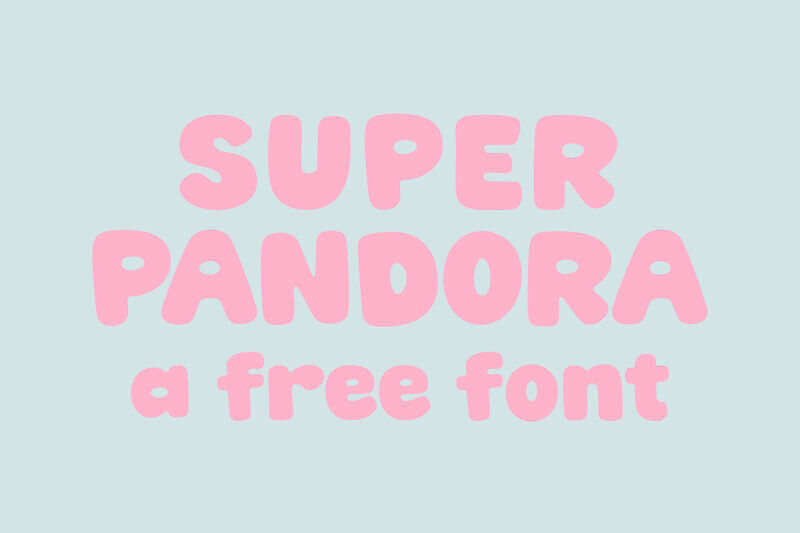
Super Pandora is a bold and playful display font that brings energy and personality to any design. With its thick letterforms, smooth curves, and cartoon-inspired style, it’s perfect for children’s projects, branding, packaging, posters, invitations, social media graphics, and creative headlines.
Its cheerful and eye-catching appearance helps designs feel fun, memorable, and full of character while maintaining excellent readability.